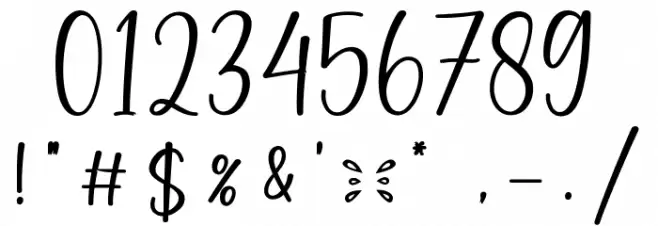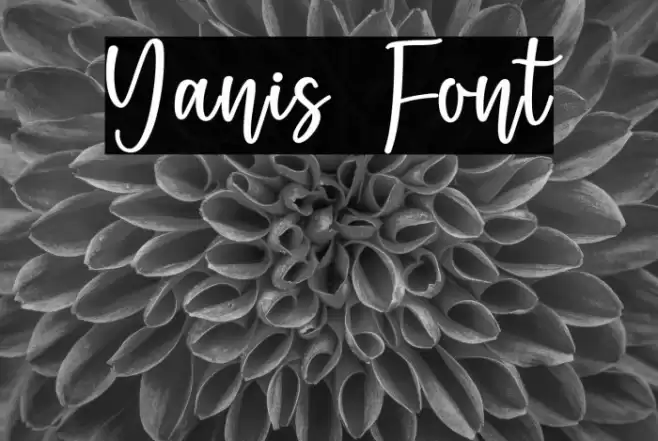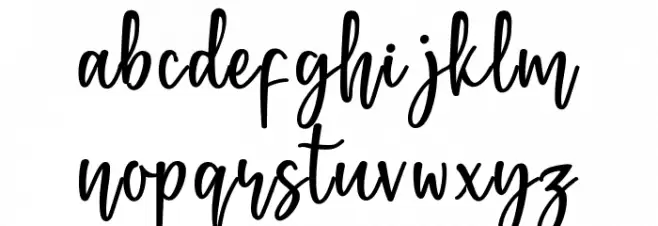
Yanis Font
Yanis Description
This font features a lively and flowing script style, characterized by its smooth, cursive strokes and a playful, handwritten appearance. The uppercase letters are elegantly looped and slightly slanted, giving a sense of movement and fluidity. The lowercase letters maintain a consistent style with rounded forms and gentle curves, enhancing the overall whimsical feel. Numbers are clear and legible, matching the script's playful nature. Special characters are integrated seamlessly, maintaining the font's cohesive look. This font is perfect for projects that require a personal and friendly touch, such as invitations, greeting cards, or branding materials.
| Proposed Projects | Ideal for invitations, greeting cards, branding, and personal projects. |